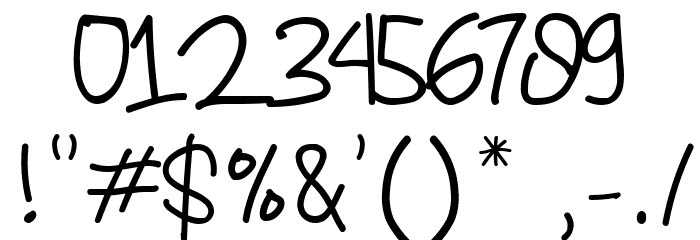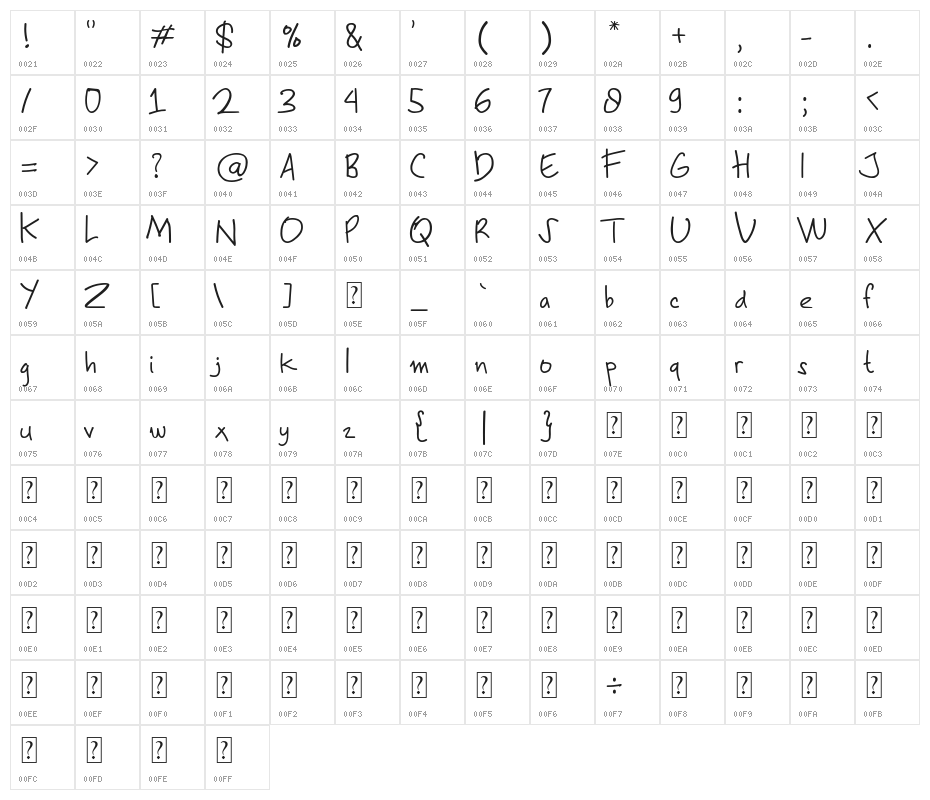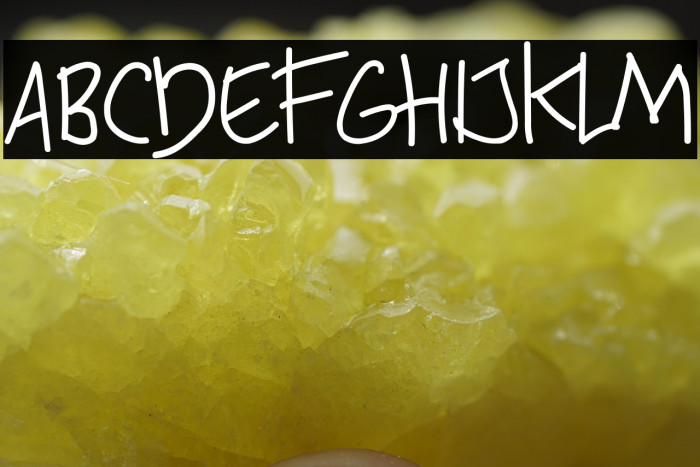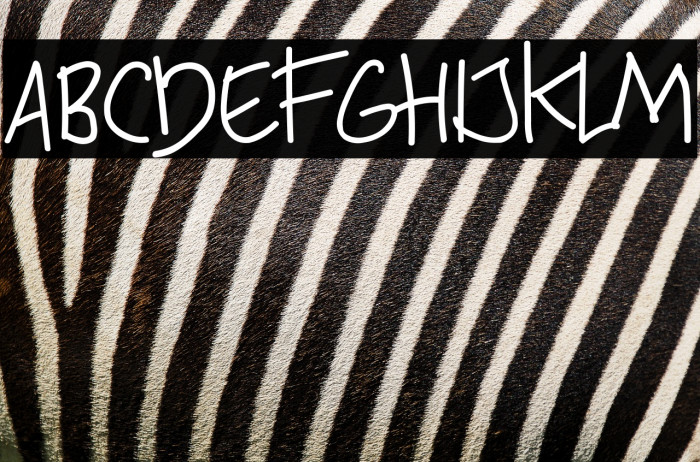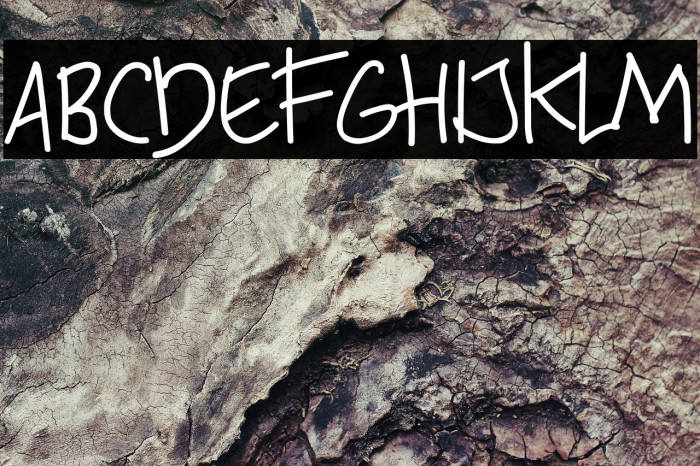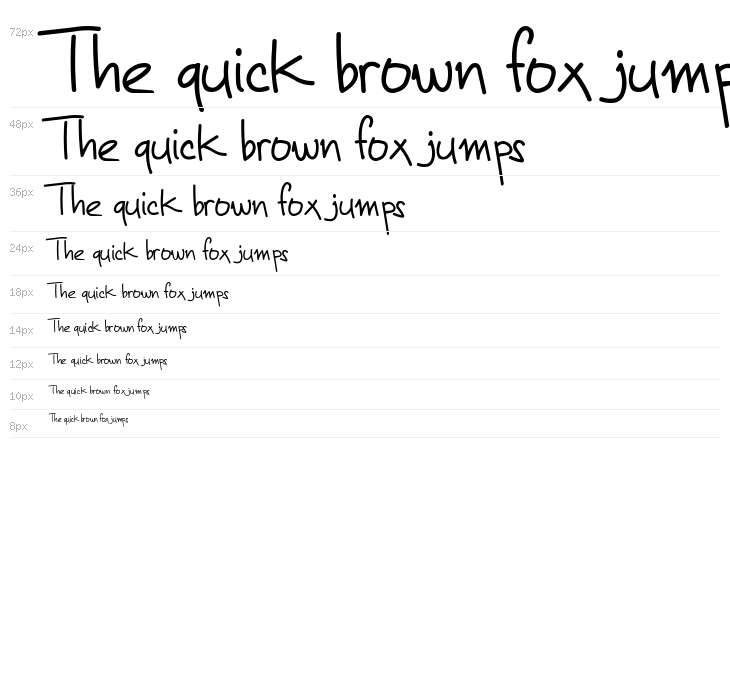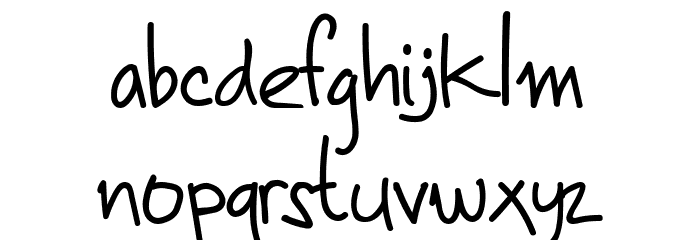
Andila Font
Andila Description
This font features a playful and casual handwritten style, characterized by its irregular strokes and informal appearance. The letters are slightly slanted, giving a dynamic and energetic feel. The uppercase and lowercase letters maintain a consistent style, with rounded edges and a natural flow that mimics handwriting. The numerals and special characters follow the same informal aesthetic, making the font versatile for creative projects. Its unique charm lies in its ability to convey a sense of approachability and friendliness, making it suitable for a variety of informal and creative applications.
Overall StyleCasual
Use CaseHeadlines, Informal text, Creative projects
Proposed ProjectsIdeal for greeting cards, children's books, personal blogs, and informal branding.